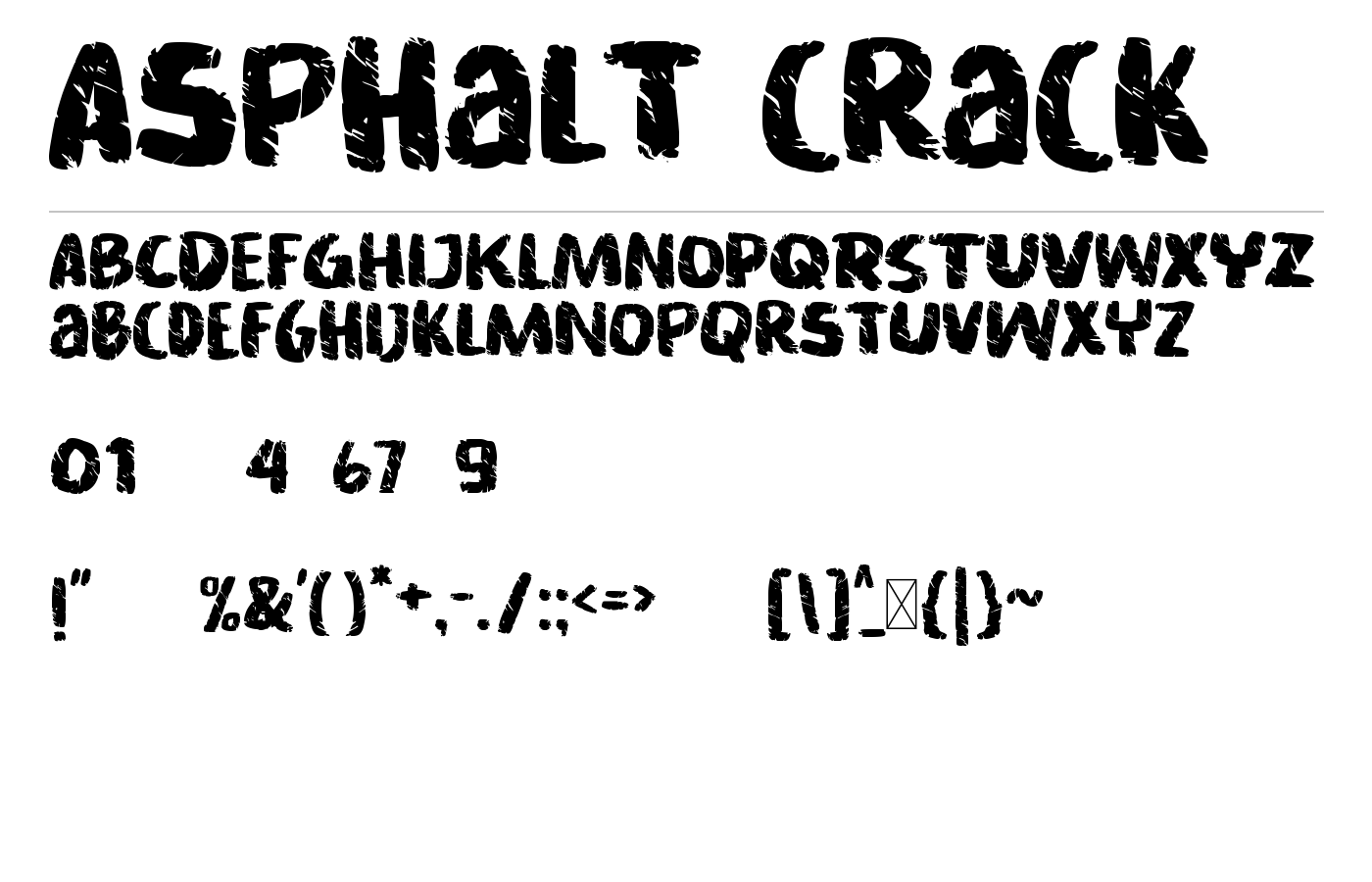
Asphalt Crack is a bold, distressed sans serif font with a strong, gritty texture that mimics cracked asphalt. Its heavy weight and rough edges give it an urban, raw feel, making it ideal for eye-catching headlines, posters, or branding that seeks a rugged, edgy personality. This font works best in designs needing a bold, expressive style that commands attention and conveys toughness or street-inspired energy.
Asphalt crack Font
About Asphalt crack Font
| Font family | Asphalt crack Font |